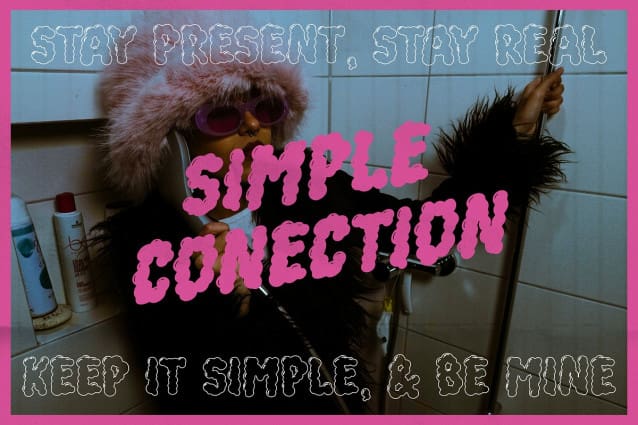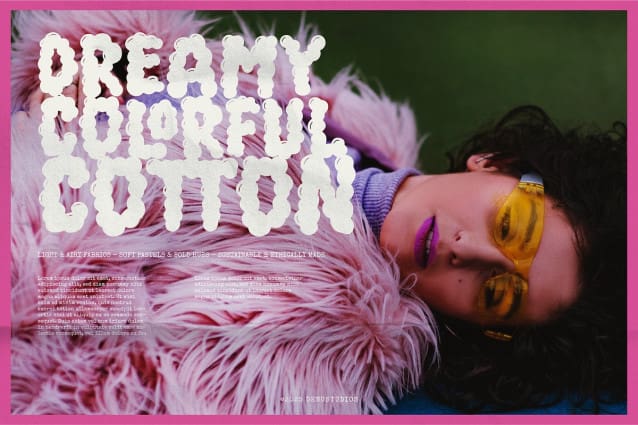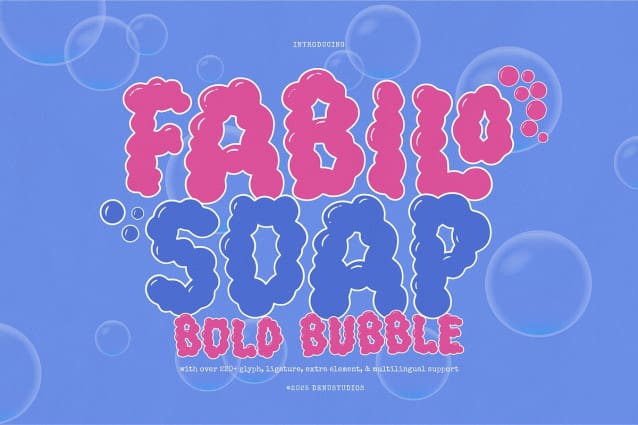
Fabilo Soap Font
Fabilo Soap | Bold Bubble Font, from Denustudios, suitable for any projects such as: logos, branding projects, homeware designs, product packaging, mugs, quotes, posters, shopping bags, t-shirts, book covers, name card, invitation cards, greeting cards, label, photography, watermark, special events, and all your other lovely projects that need a Bold Bubble Font taste.